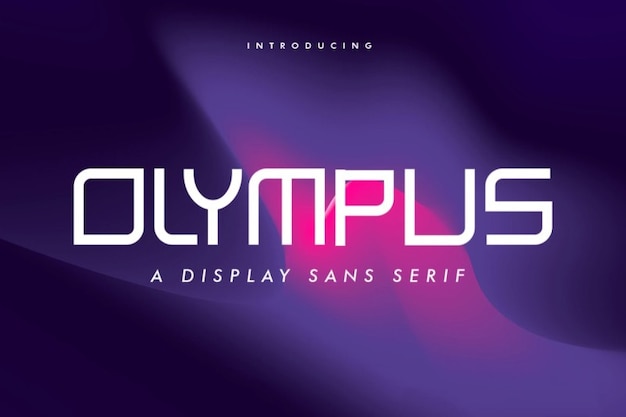
Olympus
Olympus Font
The retro-futuristic display font Olympus is perfect for projects that need to convey a sense of excitement and wonder, whether you're designing a movie poster, a video game title, or a book cover. The font's intricate details and unique shape make it stand out from the crowd, capturing the viewer's attention and drawing them into the world you've created. Download it now!